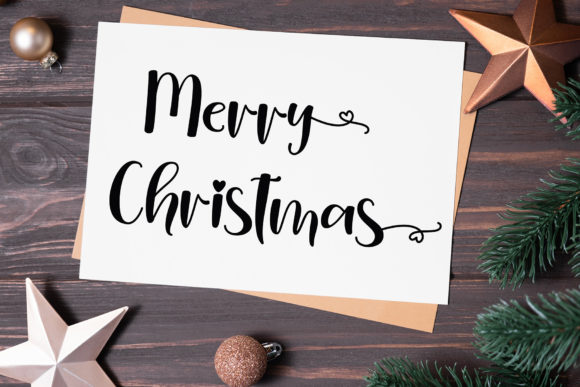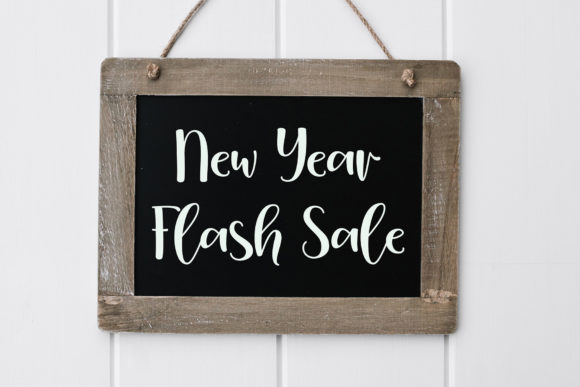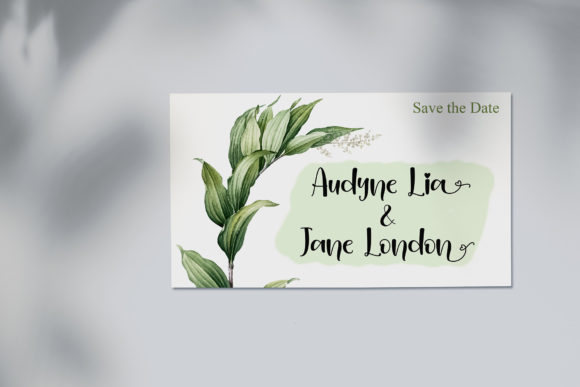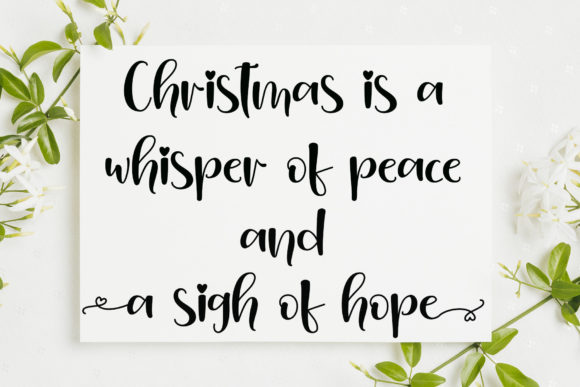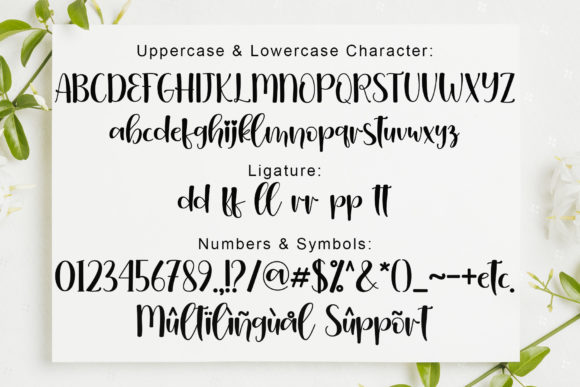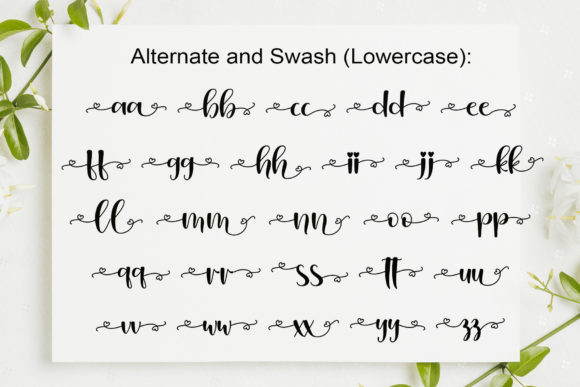
Introduction to Christania Font
As a designer, there’s nothing quite like the thrill of stumbling upon the perfect font to elevate a creative project. It’s that moment when everything clicks, and your vision starts to take shape. For many of us, that perfect font is Christania Font – a sweet and delicate handwritten font that adds a touch of elegance to any design.
With its PUA encoding, accessing the intricate details and swashes of Christania Font is a breeze. This high-quality design resource is a treasure trove for designers looking to add a personal touch to their work. Whether you’re working on a project that requires a transparent background or a free download, Christania Font is an excellent choice. Its versatility and beauty make it a valuable addition to any designer’s toolkit.
Key Features of Christania Font
- Comes in 3 font styles: Regular, Italic, and Bold
- Perfect for designers, artists, and writers looking for a unique and stylish font
Honest Review: Christania Font
I recently stumbled upon the Christania Font while searching for a design resource for a creative project. After giving it a try, I’m excited to share my honest thoughts on this font.
What works well: ✨ The Christania Font is a high-quality, elegant script font that’s perfect for adding a touch of sophistication to your designs. I love how it can easily work with transparent backgrounds, making it a great choice for creative projects that require a more minimalist approach. The font also comes in a range of weights and styles, making it versatile for various design needs.
What doesn’t work so well: ⚠️ While the Christania Font is great for many projects, it may not be the best choice for bold or playful designs. The font’s elegance can sometimes make it feel too formal or serious, which may not be suitable for every creative project.
Key features:
- High-quality script font
- Works well with transparent backgrounds
- Range of weights and styles available
How to Use Christania Font
The Christania Font is a versatile and elegant design resource that can elevate your creative project. With a transparent background, it’s perfect for adding a touch of sophistication to your designs.
Getting the Most Out of Christania Font
For the best results, use the Christania Font in combination with other design elements, such as images and graphics. Experiment with different font sizes, colors, and styles to create a unique and eye-catching design.
The Christania Font is perfect for a variety of creative projects, including wedding invitations, business cards, and brochures. You can also use it for social media graphics, blog posts, and other digital content.